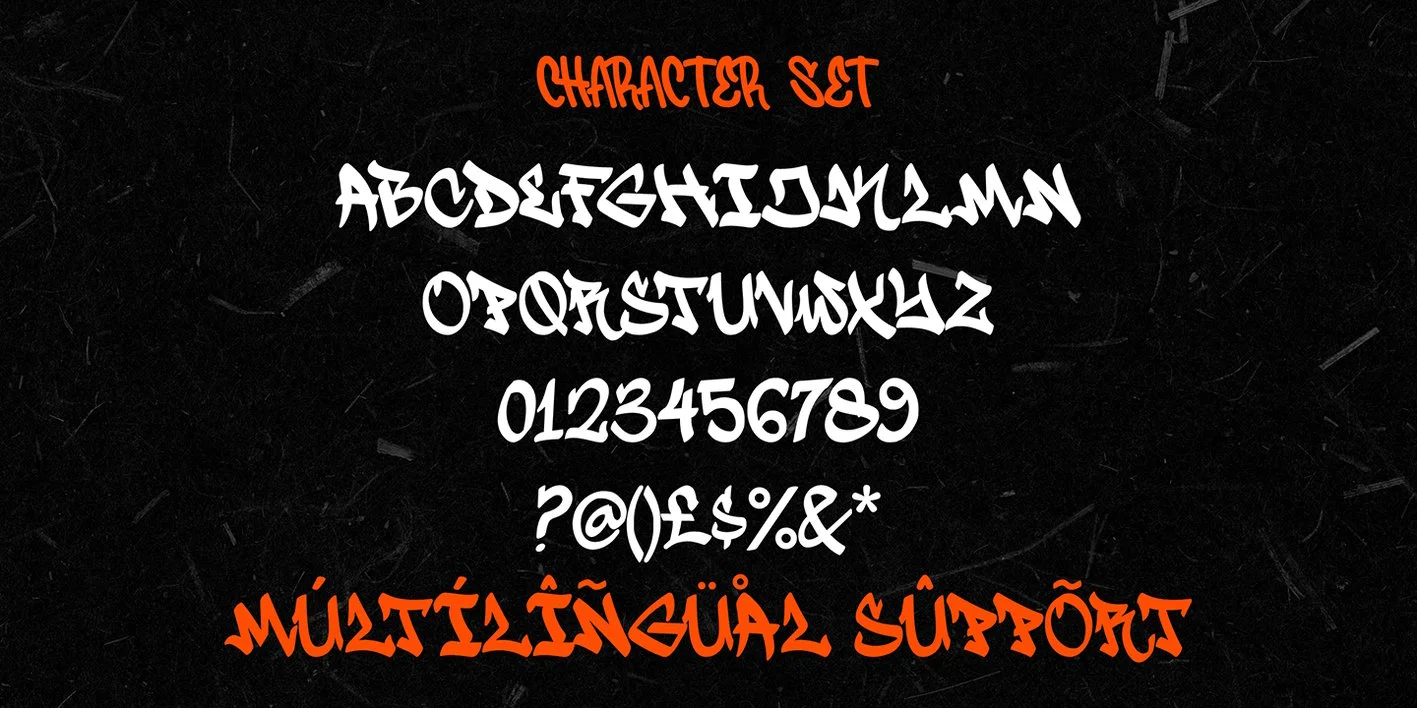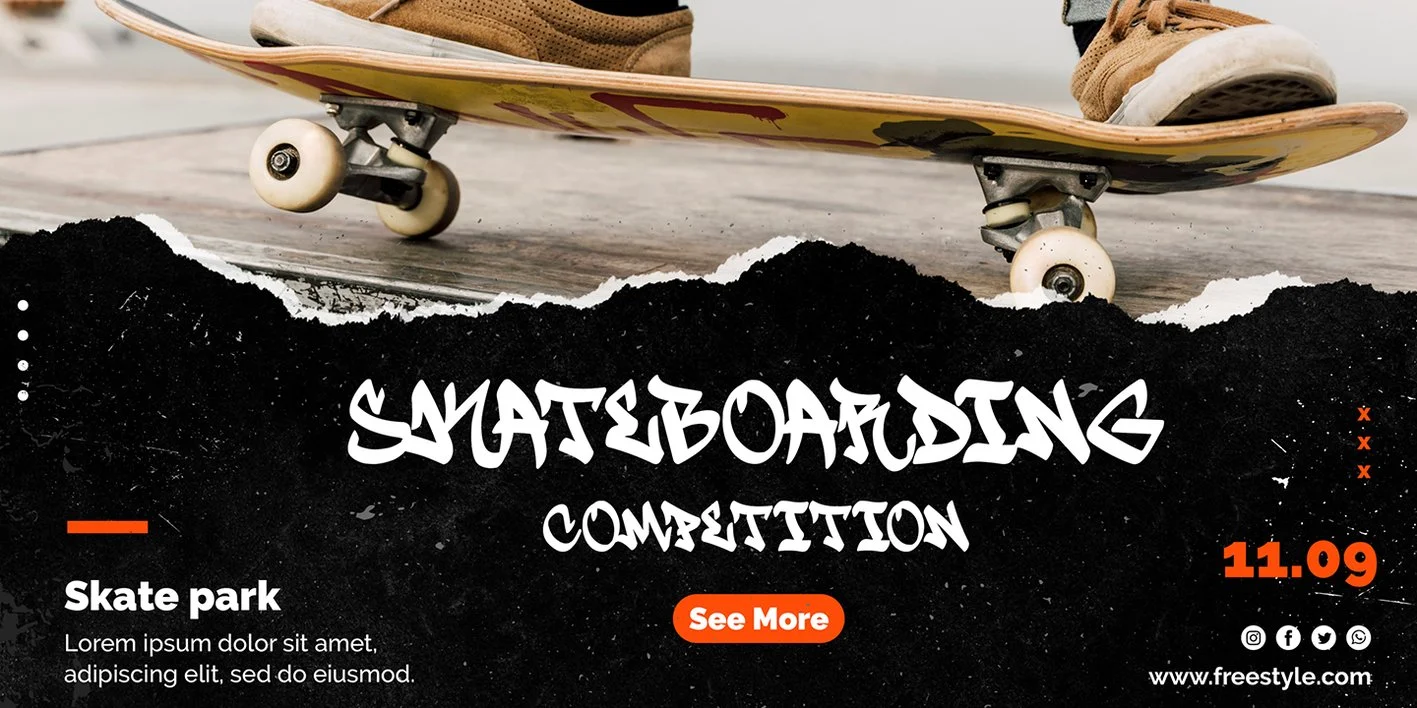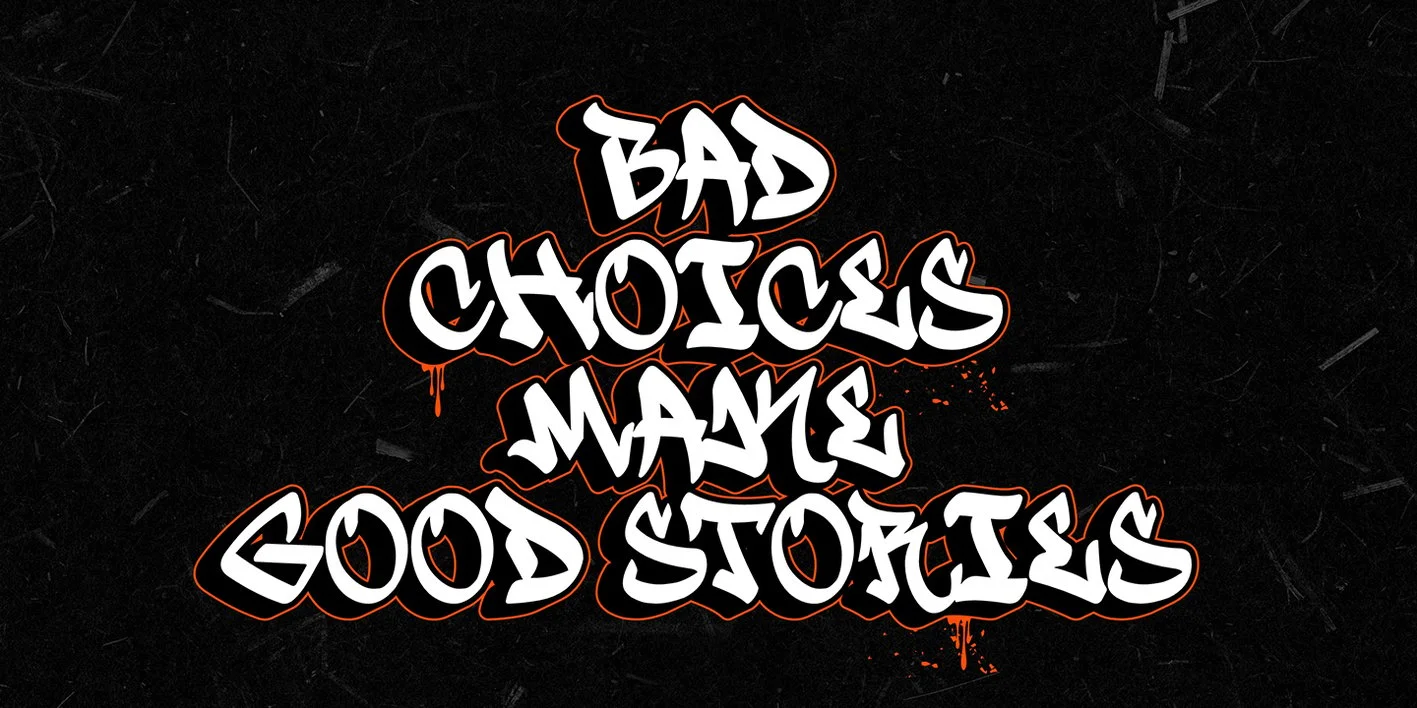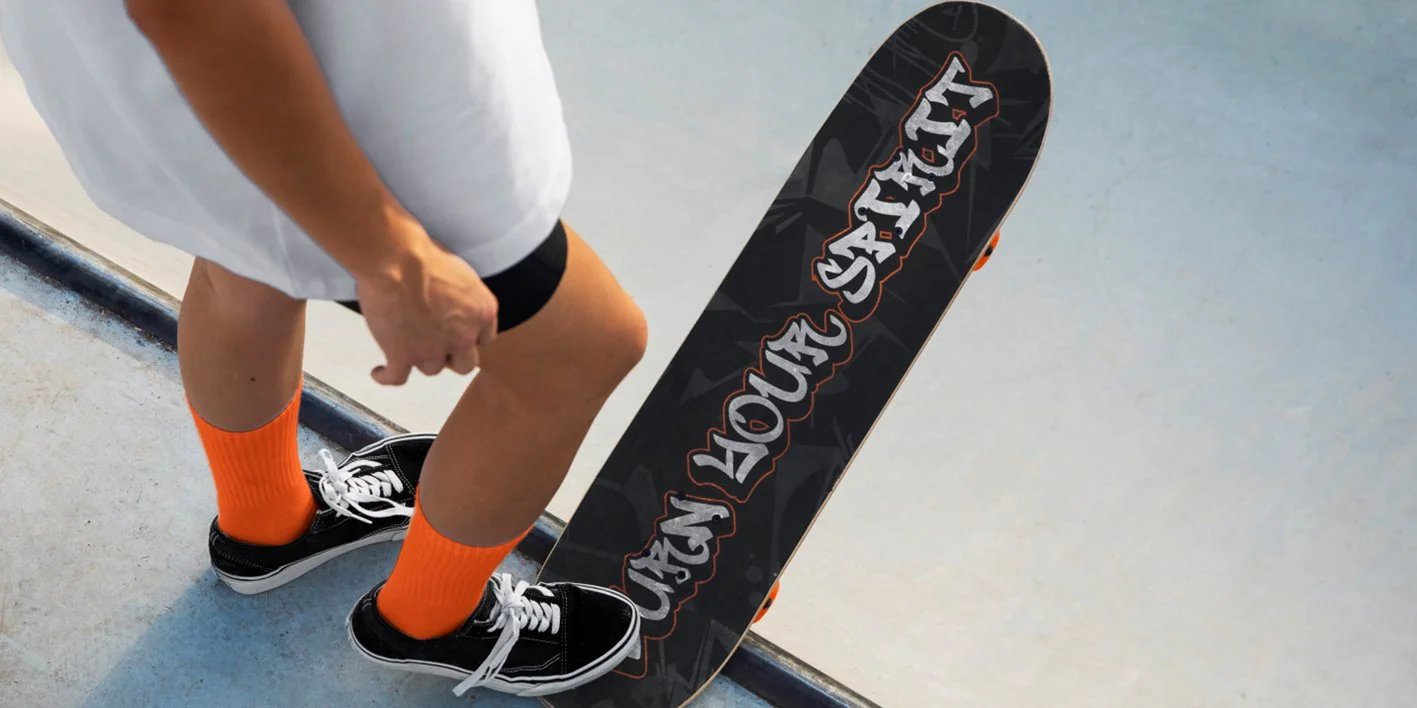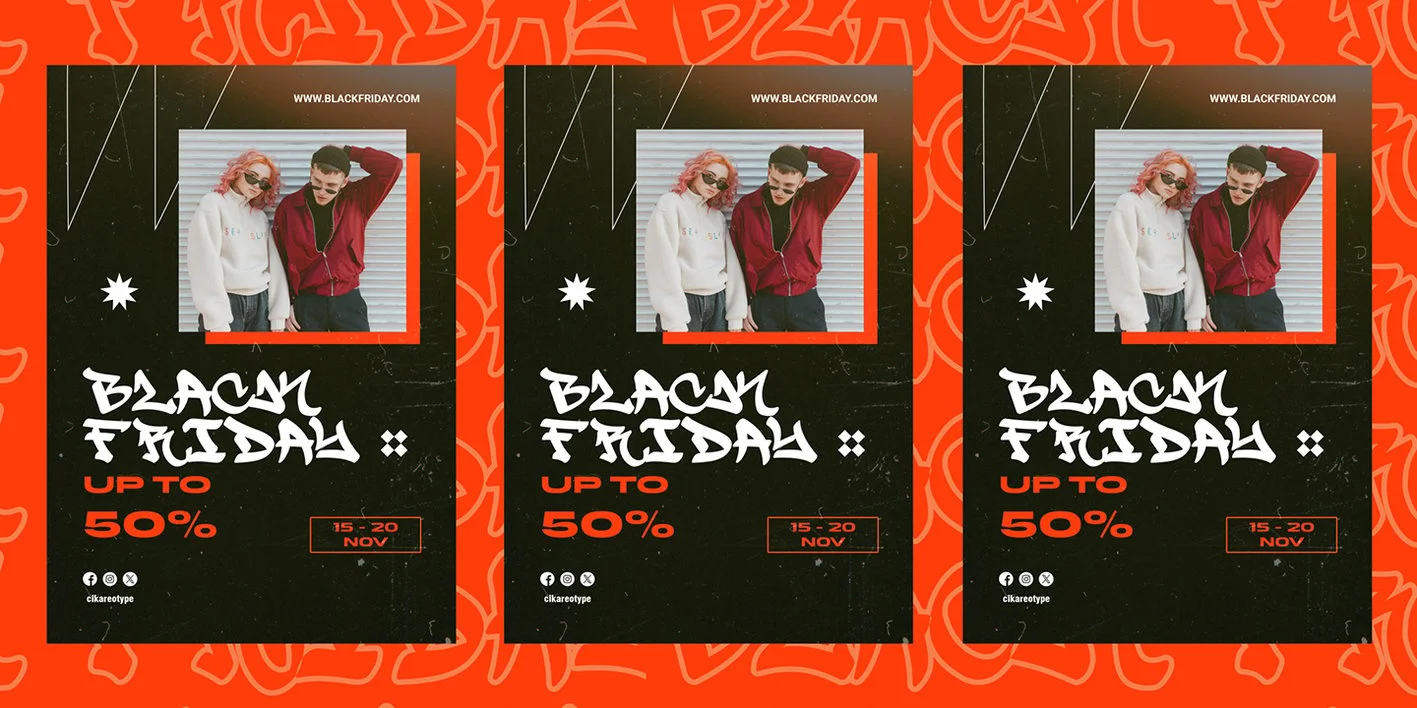
Skywof Font
There is a particular satisfaction in finding a typeface that delivers strong typographic hierarchy support without compromise. Skywof consistently provides it. The typeface brings a versatile sensibility to a broad range of creative disciplines, with refined proportions and careful stroke modulation that holds up whether the work is print-first or screen-first.
In practice, Skywof proves particularly effective for web design, brand identity systems, environmental graphics, packaging design, logo design. Designers reaching for it find that the type decisions feel resolved rather than laboured — a useful quality when client timelines are tight.
The range of applications extends to editorial layouts, product labels, signage systems, annual reports. That breadth is deliberate: the proportions and spacing were stress-tested across a wide range of mock briefs before the typeface was finalised.
The proportions balance x-height, cap height, and ascender length to produce a face that reads confidently at body copy sizes without losing presence at display scale. Sidebearings were derived from visual rhythm testing rather than mathematical calculation alone.
Skywof sits comfortably alongside both classic and contemporary typefaces in multi-font hierarchies. It takes direction rather than competing for attention — a quality that experienced designers know is harder to find than it appears.
UX designers establishing typographic systems for digital products find Skywof a reliable choice for projects that demand both personality and restraint. The design avoids the self-conscious quirkiness that dates quickly, settling instead for considered distinctiveness that holds up over time.